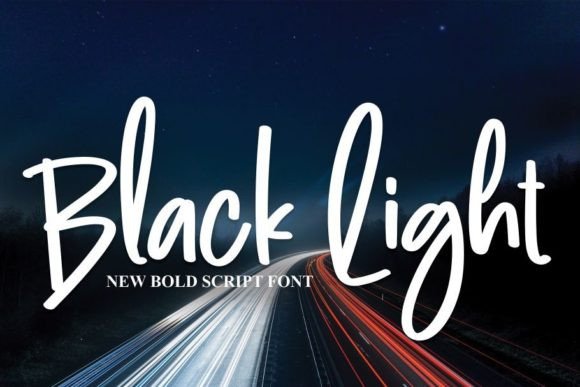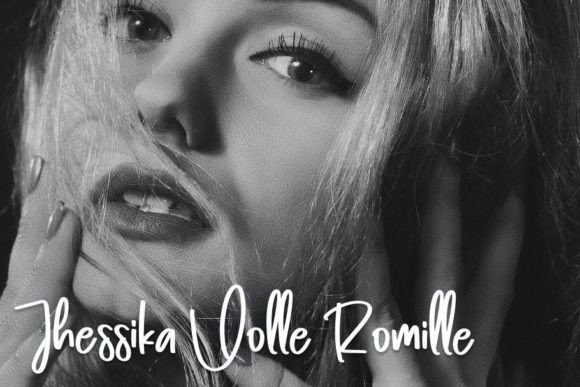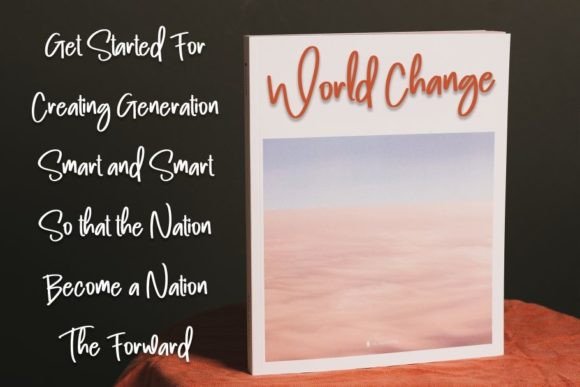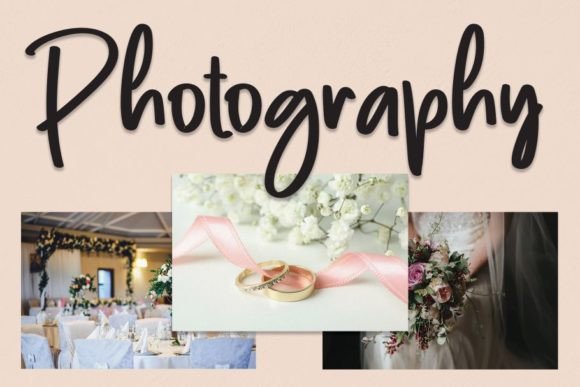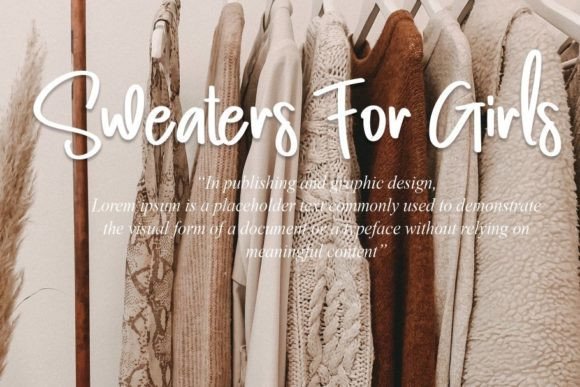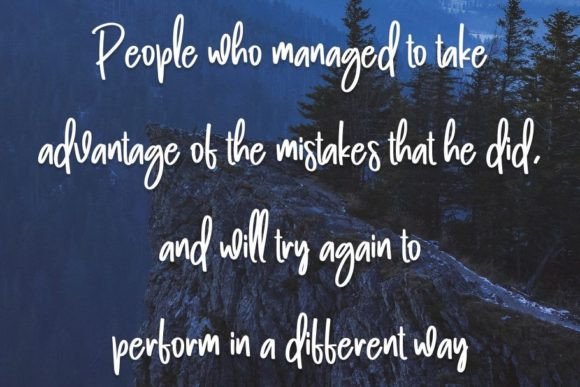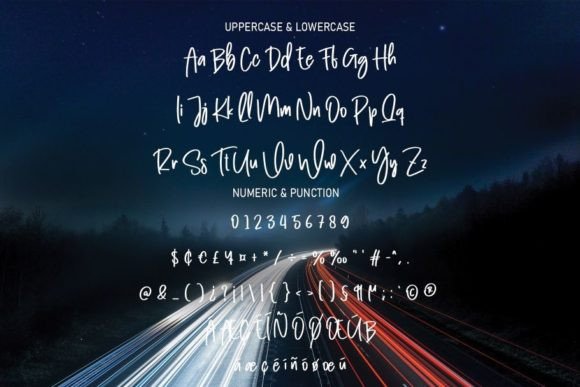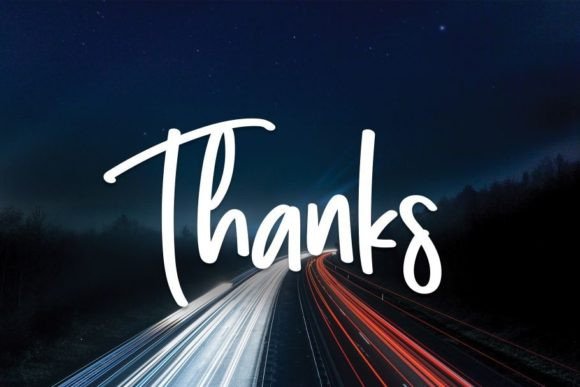
Black Light Font
About Black Light Font
“Black Light” offers a contemporary and stylish handwritten font that is perfect for a variety of design applications. Its latest style letters provide a versatile and creative solution for projects where a handwritten touch is desired. Whether you’re working on wall displays, wedding invitations, social media post logos, advertisements, product packaging, product designs, labels, photography watermarks, invitations, stationery, or any other creative project, “Black Light” is a suitable choice.
The charm of “Black Light” lies in its ability to convey a sense of modernity and personalization. Each character is thoughtfully designed to exude a contemporary and stylish flair, making it an ideal choice for projects where you want to create a visually appealing and unique impression. This font allows you to add a touch of creativity to your content while maintaining a handwritten feel.
For branding, product designs, promotional materials, and various design applications, “Black Light” provides the creative freedom to make your projects stand out. Its contemporary handwritten style can enhance the visual appeal of your designs and effectively communicate your message to your audience.
In summary, “Black Light” is a valuable font that brings modernity and creativity to your creative work. Its contemporary and stylish script style makes it suitable for a variety of applications, and its ability to convey uniqueness and sophistication sets it apart. With “Black Light” in your font collection, your design projects will exude a sense of modern style and individuality that leaves a lasting impression.